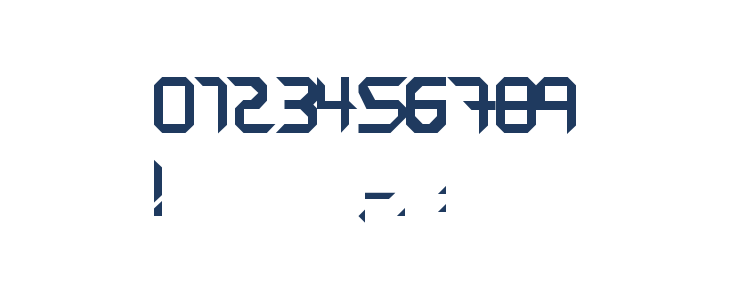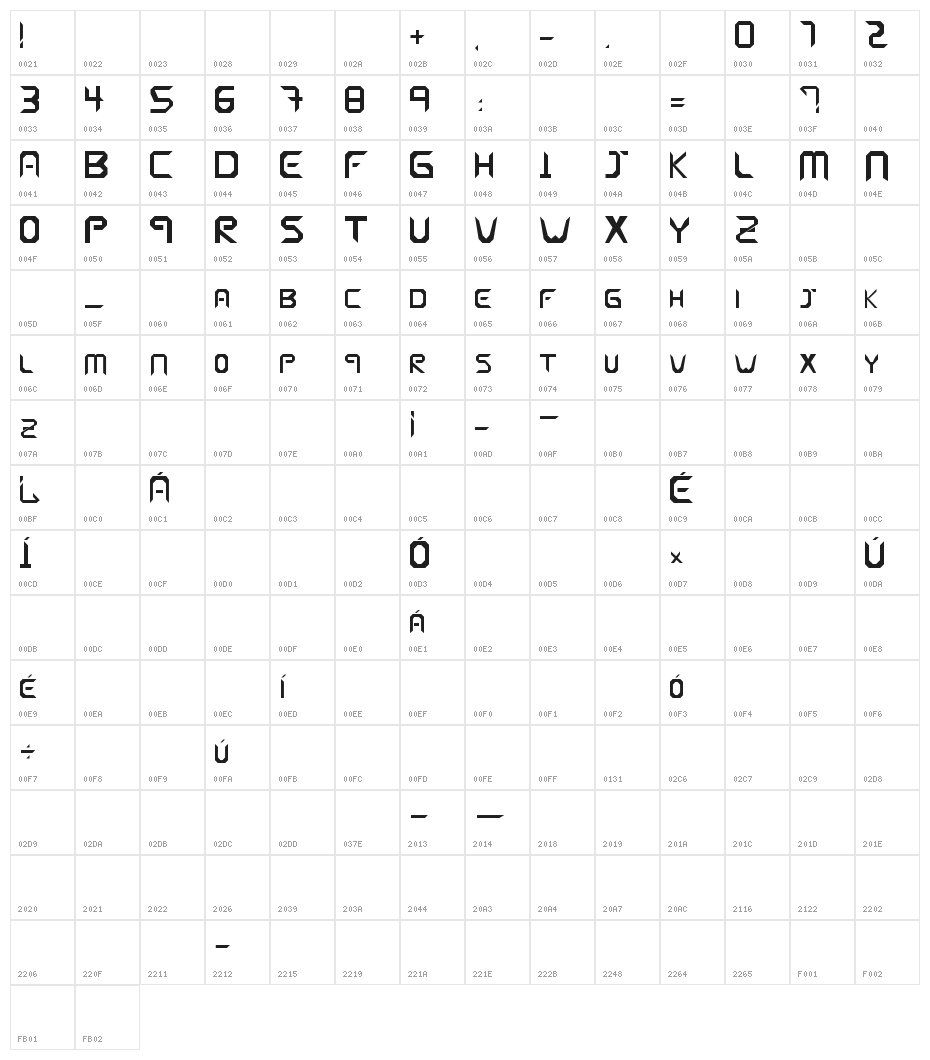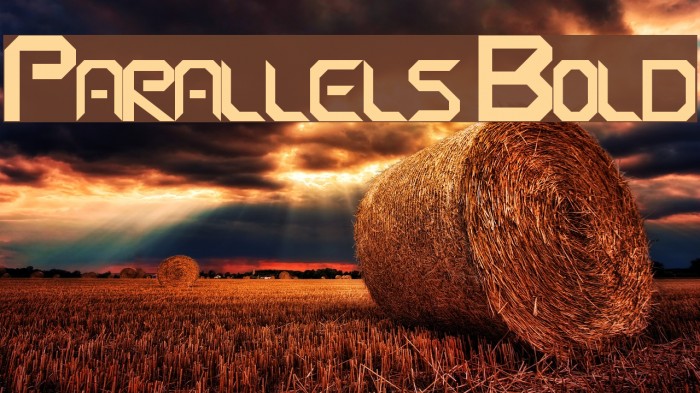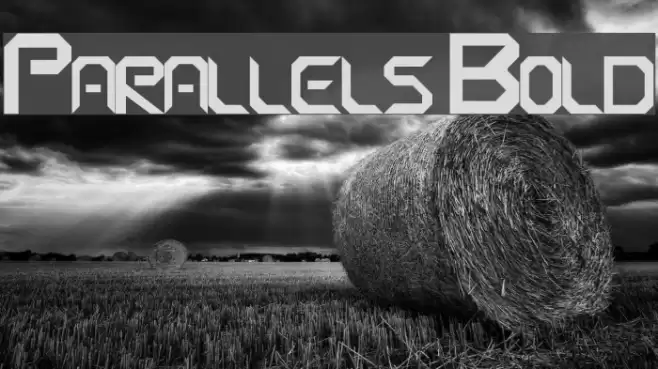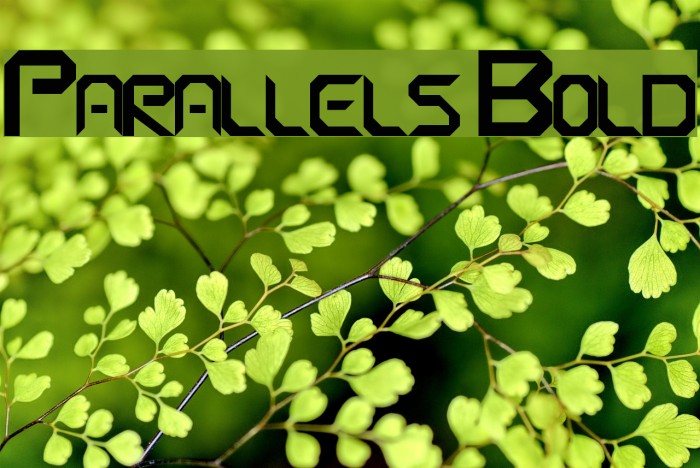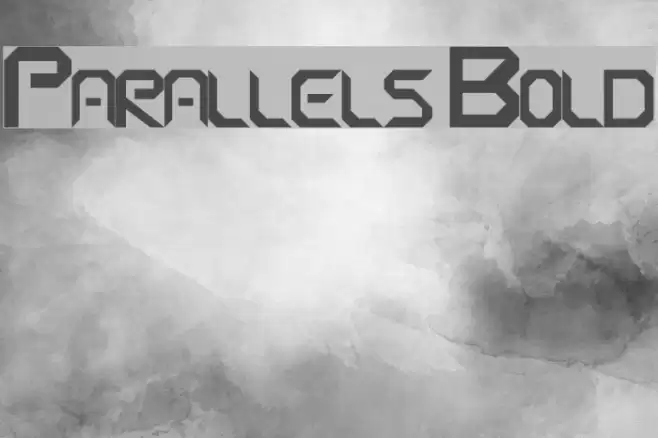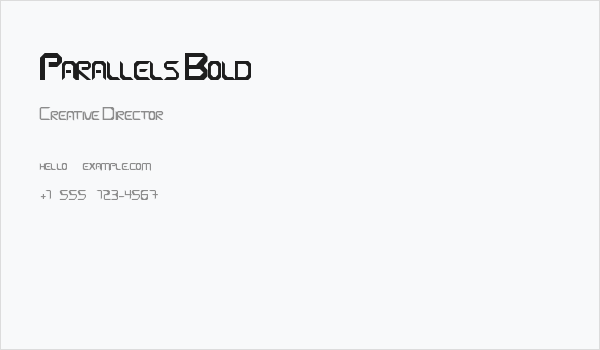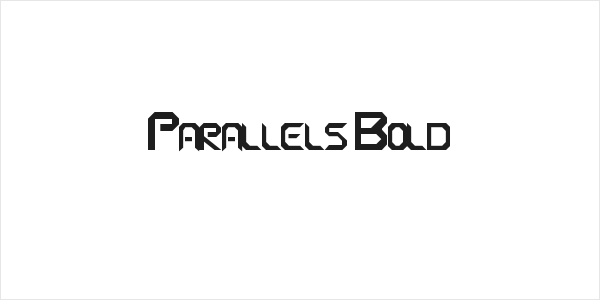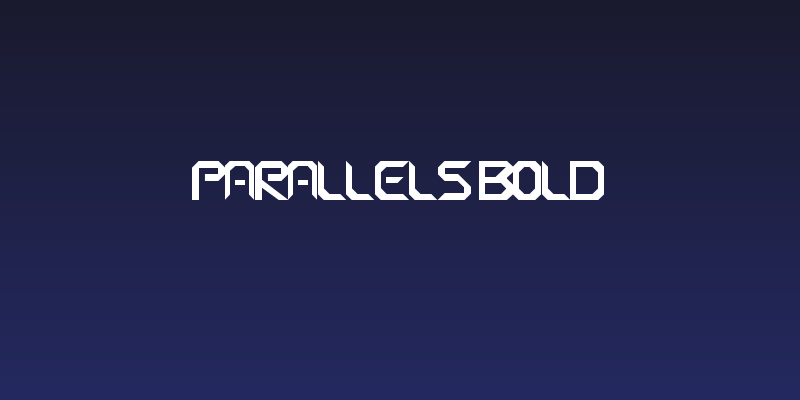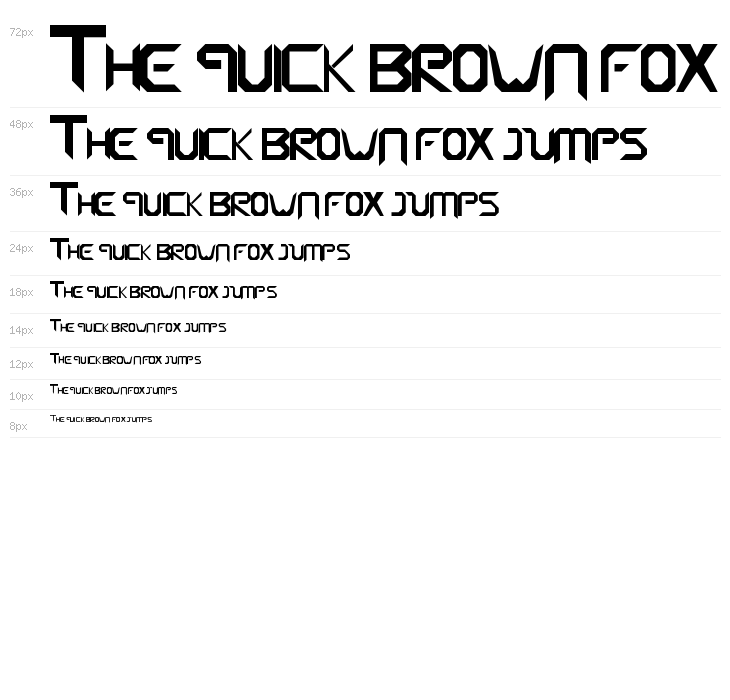
Parallels Bold Font
Parallels Bold Description
This font features a bold, geometric design with sharp angles and a futuristic aesthetic. The characters are constructed with strong, straight lines and distinct angular cuts, giving it a modern and edgy appearance. The uppercase letters are uniform in height, while the numerals and special characters maintain the same angular style, ensuring consistency across all glyphs. The font's unique structure makes it stand out, ideal for projects that require a contemporary and dynamic look.